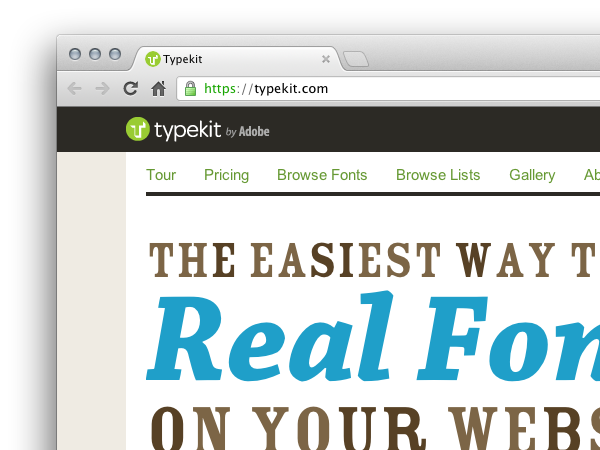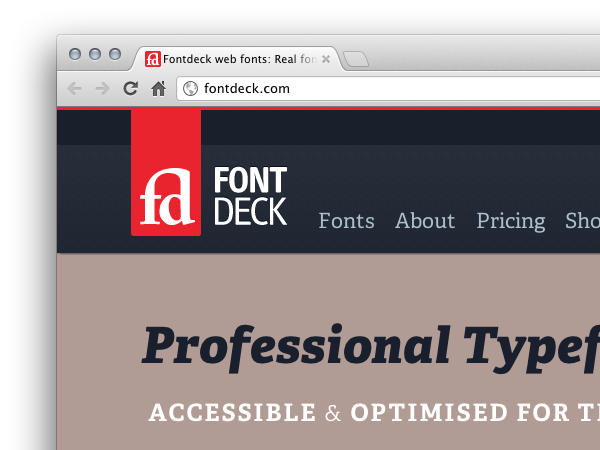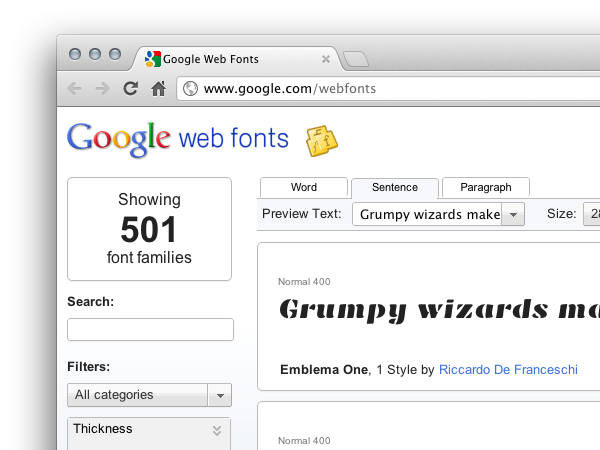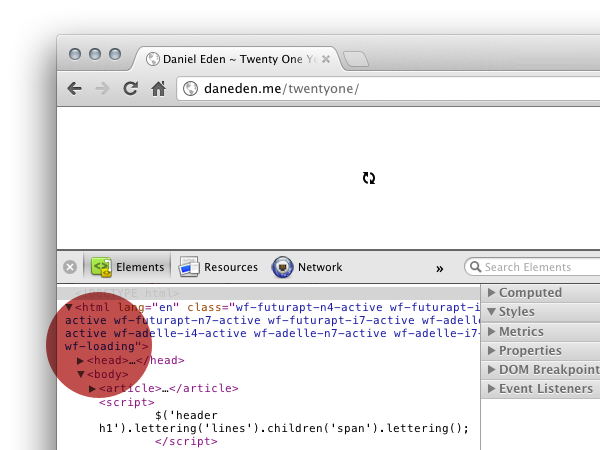
In this article we’ll be taking a look at a few of the most popular web font services, comparing features between them and talking about some of the red flags involved with working with real fonts on the web.
We’re a lucky bunch, we web designers of the present. The web designers of yesteryear have long struggled with a frustratingly small selection of fonts – the web-safe system fonts that were tried and tested for screen use. You know their names. Georgia, Times New Roman, Arial, Verdana – nearly all of them send a slight shudder down our spines.
But not any more. The web font is here! CSS3 has brought real web fonts to our utility belt, with the power of @font-face. But with this new technology comes an overwhelming responsibility – the headache that is licensing fonts for use on the web. More and more foundries are supplying fonts with license for online use, but then hosting the fonts yourself and ensuring compatibility across devices and browsers can be another world of pain on its own.
That’s where web font services come in. They handle the bulk of the licensing and hosting work, leaving you to do what you do best – build amazing and beautiful websites.
I’ll be talking about three of the most popular web font services here. Namely, Typekit
All these services host your fonts on their own servers, and manage all of the licensing nonsense that goes with them – so you can just plug and play with no worries.
These services don’t all use the same technique for embedding fonts. Fontdeck and Google Web Fonts both allow you to use a tag to grab the fonts directly in order to use them on your site, whereas Typekit has a different approach. Typekit requires you to include a snippet of JavaScript in your site which grabs the necessary resources for you upon execution.
Using a tag has a couple of obvious benefits. For one thing, this method doesn’t require the user to have JavaScript enabled. Additionally, the script that Typekit’s code generates will result in at least 2 additional http requests – one for another script, and a second for the CSS file grabbed by said script. This is something that Fontdeck and Google don’t have to suffer through.
However, Typekit has one significant advantage by using a script rather than plain old CSS – the wf-* classes.
When your site requests fonts from Typekit’s servers via their JavaScript code, something slightly wonderful happens – the script will add classes to the html element of your site, depending on the status of the request for fonts.
The classes are wf-loading, wf-active, and wf-inactive. What does this mean for us? Well, these classes can help us to prevent FOUT – the flash of unstyled text that appears as our web fonts are loading. By styling our pages appropriately when the fonts are loading, we can prevent the jarring effect that FOUT can have for our user. Check this page for an example – while the fonts are loading, a class of wf-loading is applied to the html tag.
Using CSS, we can hide all of the content and display a loading animation to make it clear to the user that something is happening. Once the fonts have finished loading, we can gradually fade our content back into view. Google Web Fonts also allows you to use a script if you’d like the advantage of these classes. In fact, the script behind these classes was a collaborative effort between Google and Typekit.
The Costs
Each of these services adopts a different pricing model. Google Web Fonts is completely free. You can even download the fonts for local use on your computers, which is great if you’re trying to build consistent branding with typography.
Typekit has several different pricing tiers, ranging from a free plan to $99 a year. The free plan has a limited number of fonts, allowed on only one website, and requires you to display a Typekit badge on your website. All the paid plans allow you to remove this badge, and allow you to use create more websites and use more fonts the more you pay. For more information about their pricing plans, check their website.
Fontdeck adopt a different pricing method. They charge on a per-font basis, with fonts (at time of writing) ranging in price from $2.50 a year upwards, but typically costing around $7.50 a year.
The Ugly
One major concern when using web fonts is how they appear across the vast variety of devices, browsers, and platforms. Unfortunately, there’s no way to ensure our websites will look exactly the same on one device as they do on another – we know that’s OK though. Still, we could do with some reassurance about how well the fonts will render.
Luckily, our web font services know this is a big deal. They all provide screenshots of how the font renders in all the popular browsers, including IE6 and up, Google Chrome, Safari, Firefox, and Opera. Generally speaking, web fonts render just fine in all cases. Some lighter faces might appear jagged in Windows, but that’s just down to the Windows font rendering engine – not much we can do there.